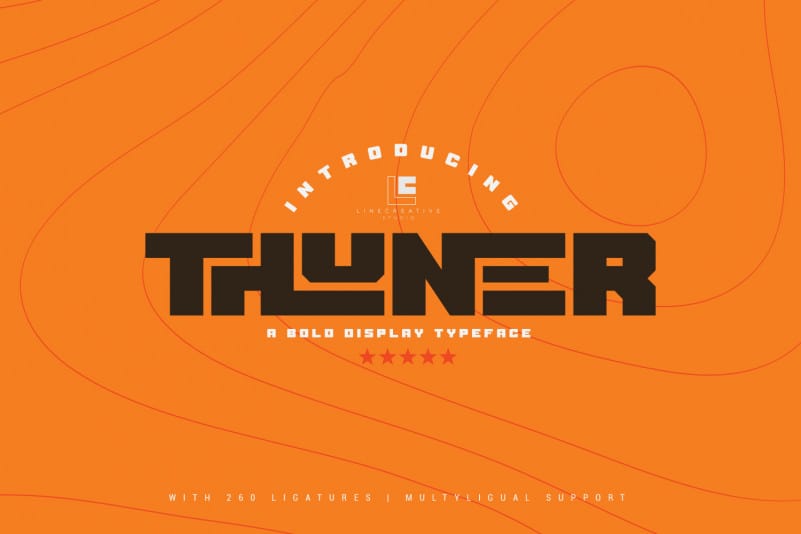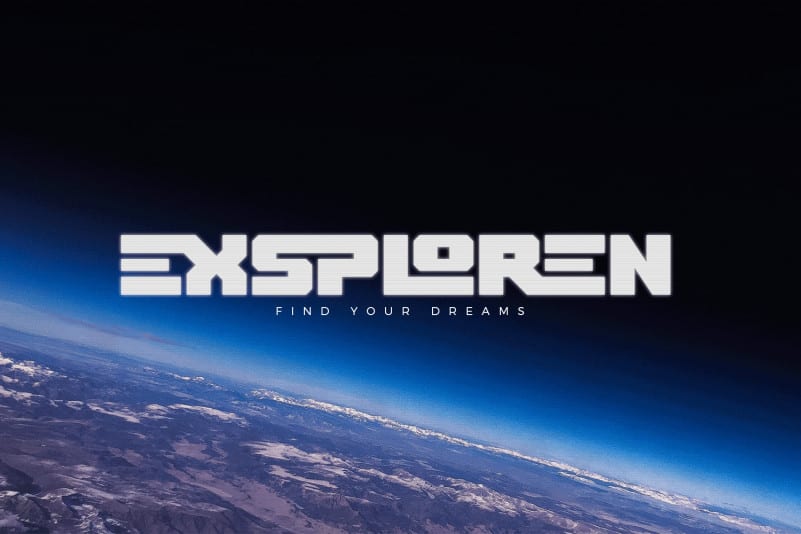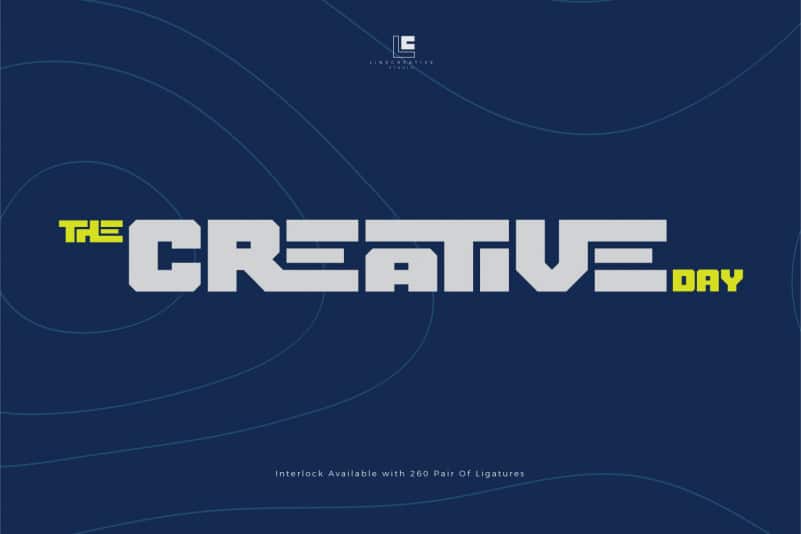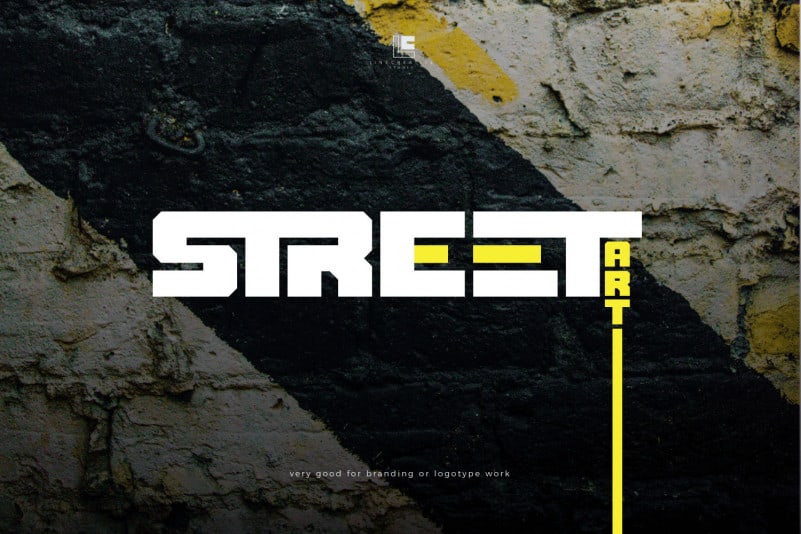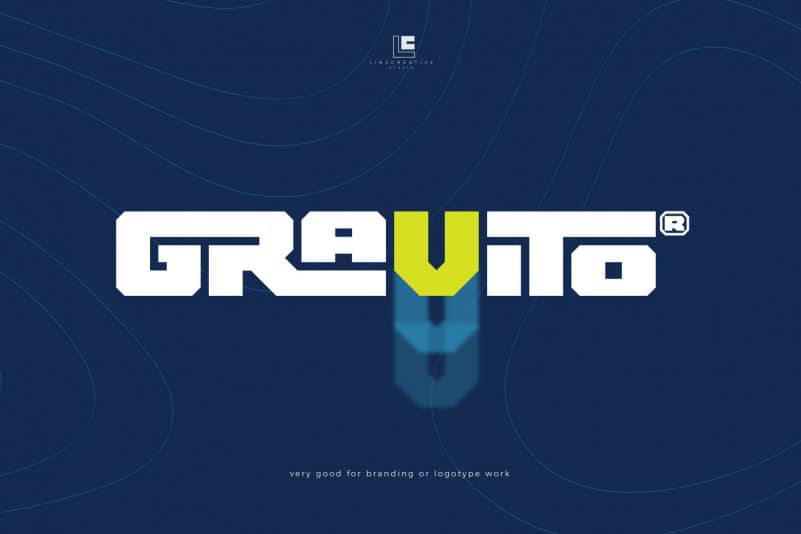
Thuner Display Font
Thuner Display Font is a chunky bold typeface perfect for any fun quirky design work! This font is equipped with ligature will be very good for your work such as posters, logos, t-shirt designs, branding,or even large scale artwork